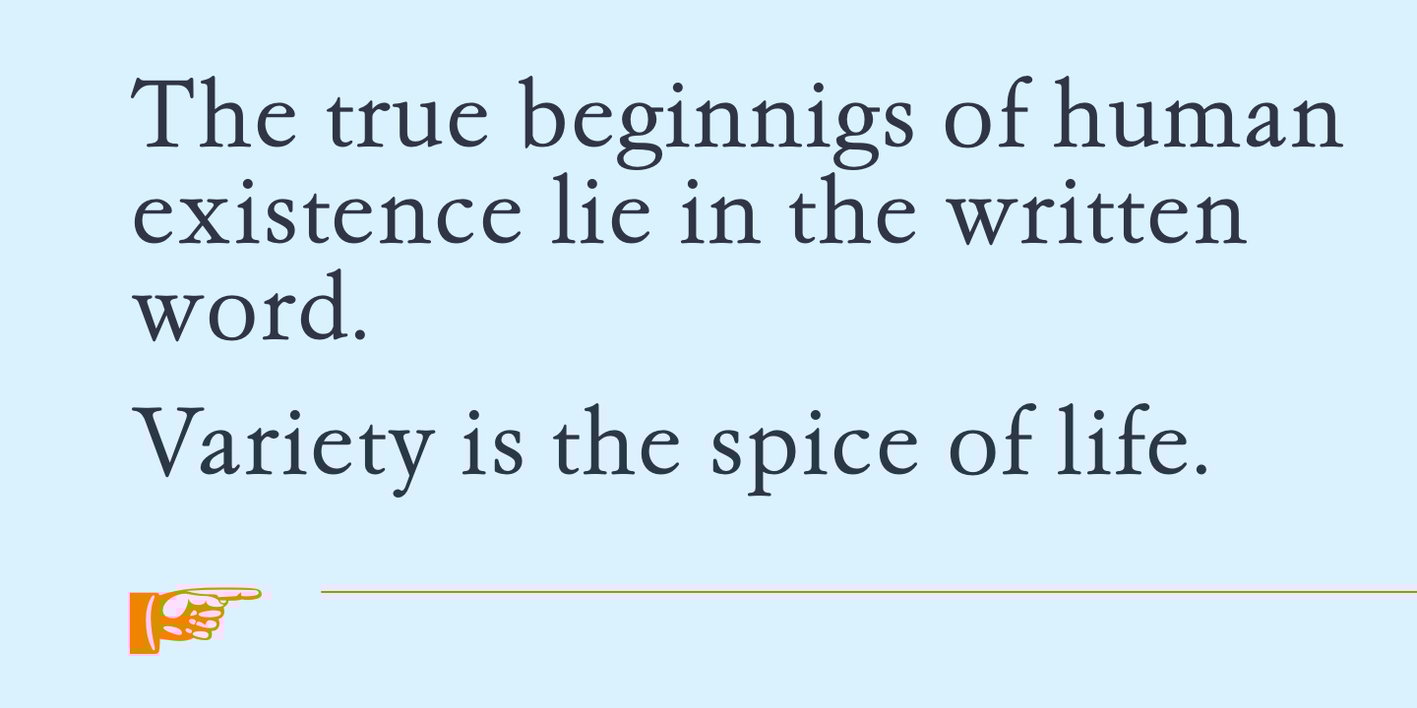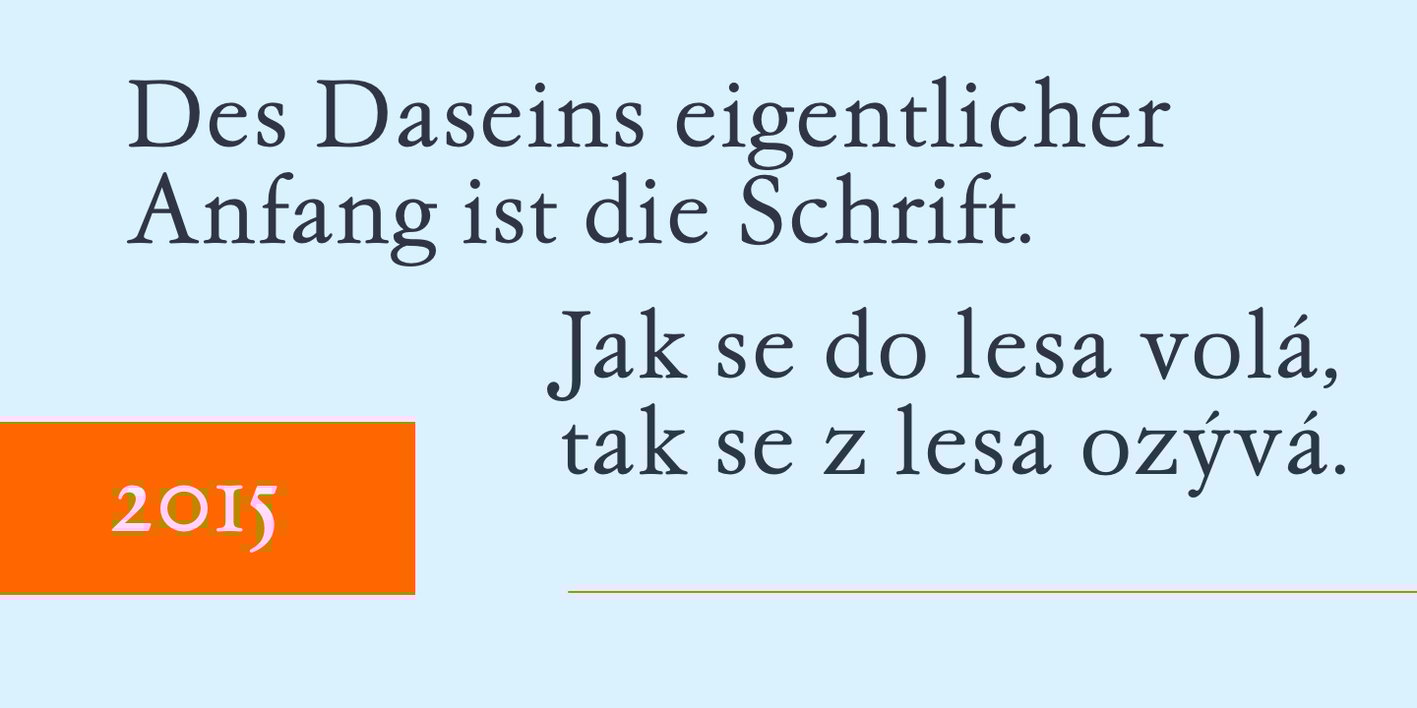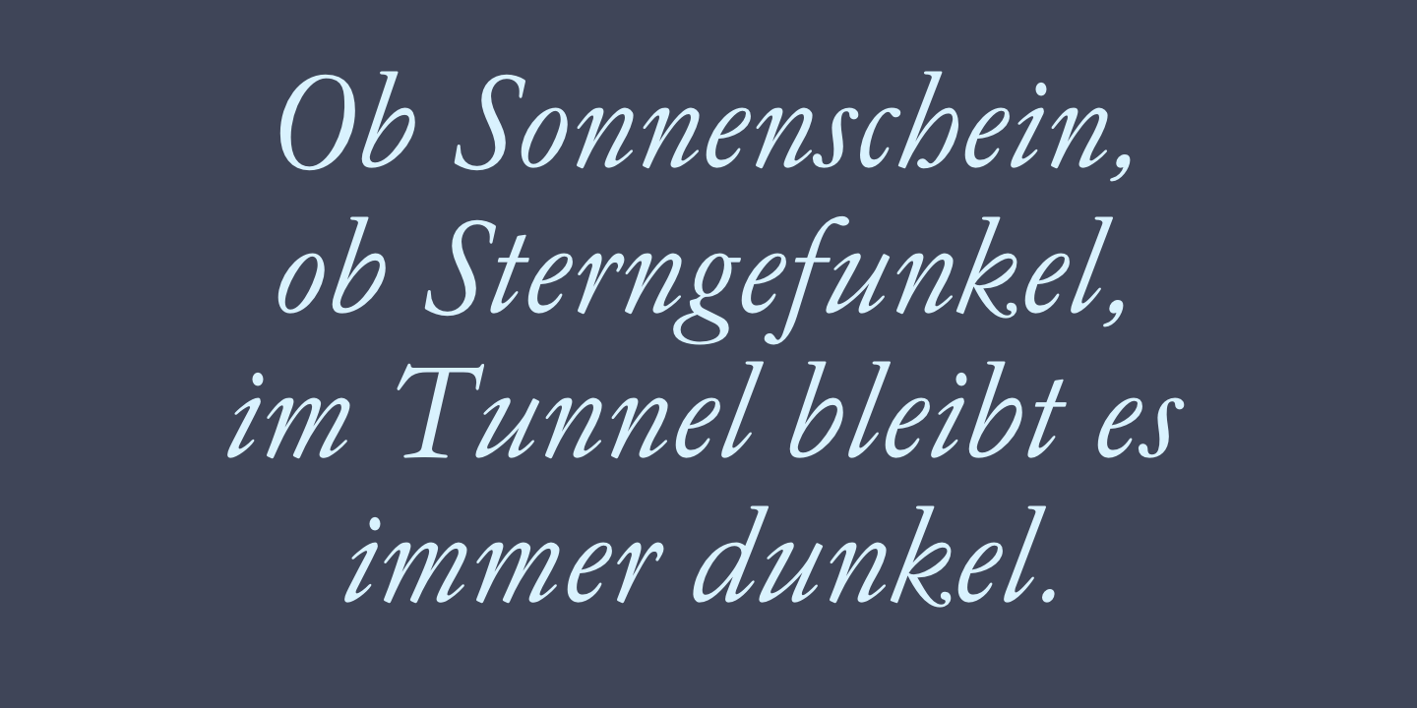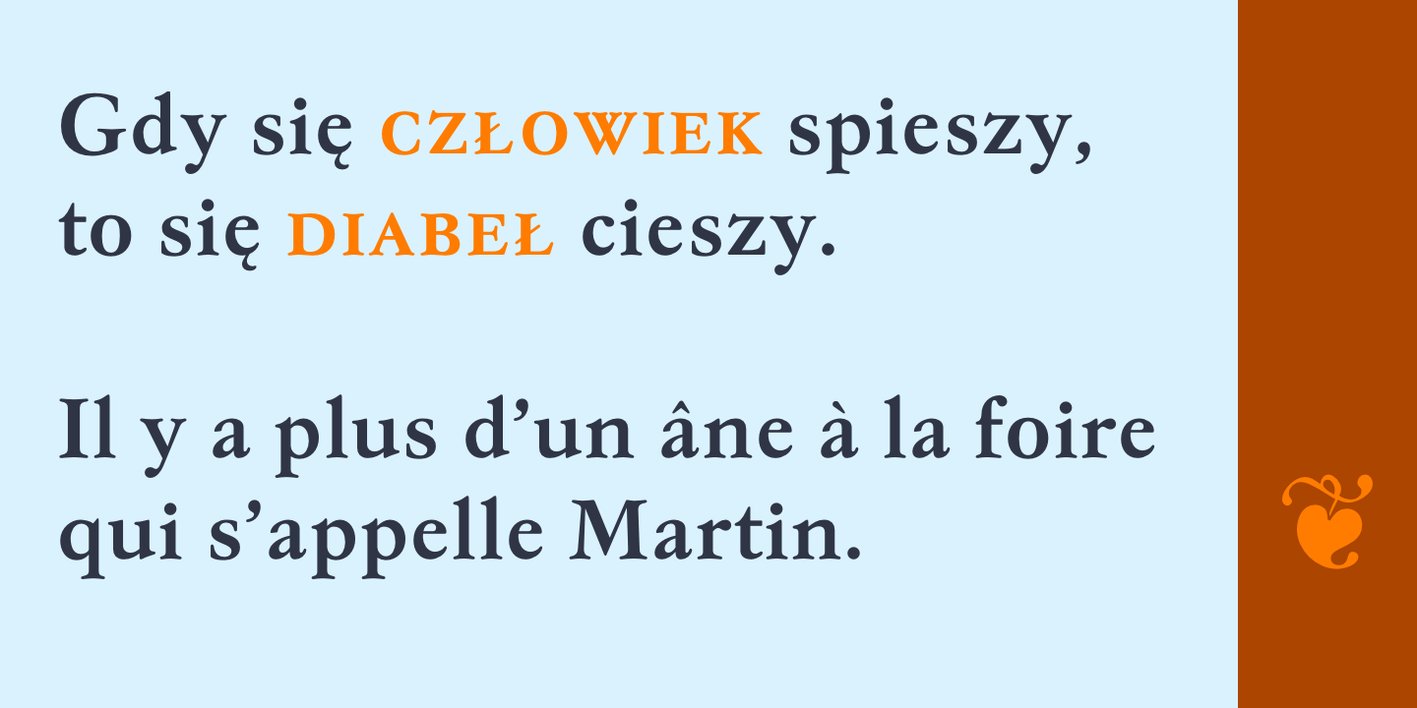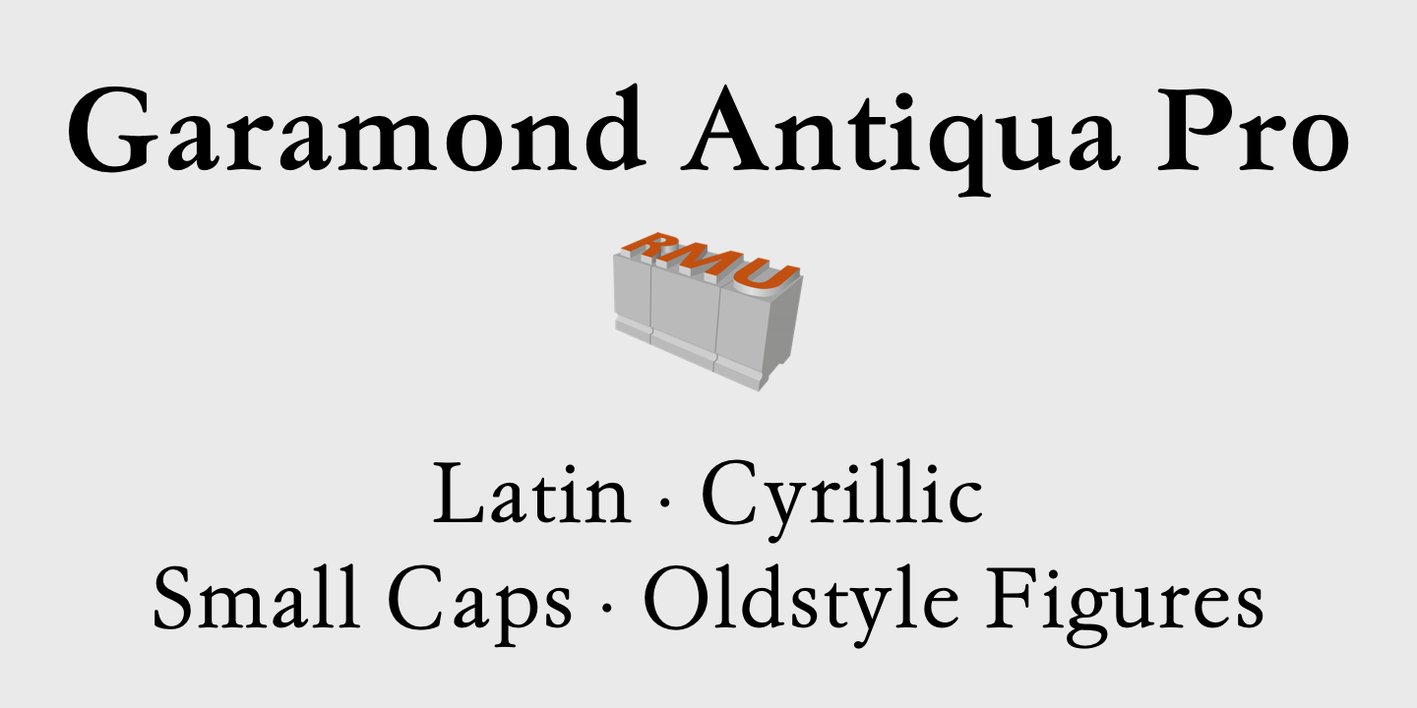
Garamond Antiqua Pro Font
Garamond Antiqua Pro Font is perfect for classical literature publications, academic scholarly papers, traditional book publishing, fine art exhibition catalogs, historical documentation, university press materials, classical music programs, luxury editorial design, prestigious academic journals, traditional wedding invitations, heritage brand communications, and scholarly projects that require timeless, classical typography with Renaissance elegance and academic authority.
What makes Garamond Antiqua Pro Font so exciting is its timeless Renaissance heritage and scholarly excellence that embodies the foundational principles of classical typography and the intellectual sophistication of European humanist tradition. This typeface features beautifully proportioned letterforms with classical characteristics and Renaissance-inspired details that evoke the golden age of printing, scholarly manuscripts, and the kind of intellectual refinement that defines enduring academic and cultural excellence. The font's classical character and scholarly appeal make it perfect for educational institutions and cultural organizations that want to communicate tradition, authority, and the kind of timeless elegance that honors centuries of typographic heritage.
Garamond Antiqua Pro Font typically comes in multiple weights and styles including Light, Regular, Medium, Bold, and corresponding Italic variations. Professional versions often include small caps, old-style numerals, classical ligatures, and extensive international character support that provide complete typographic solutions for scholarly publishing and academic communications that demand the highest standards of classical typography.
Whether you're designing academic publications, classical literature editions, or cultural institution materials, Garamond Antiqua Pro Font delivers exceptional classical authenticity and scholarly elegance that resonates with readers who appreciate intellectual tradition and typographic refinement. Its Renaissance proportions work beautifully in both traditional print applications and contemporary digital publishing, maintaining its distinguished character across all scholarly and cultural contexts.
The masterfully crafted letterforms of Garamond Antiqua Pro Font demonstrate the ultimate expression of Renaissance typography and classical design principles. Each character has been refined to honor the legacy of Claude Garamond while ensuring optimal performance for contemporary scholarly and cultural applications, making it particularly valuable for academic communications where typography must convey both intellectual authority and the timeless elegance of classical learning.